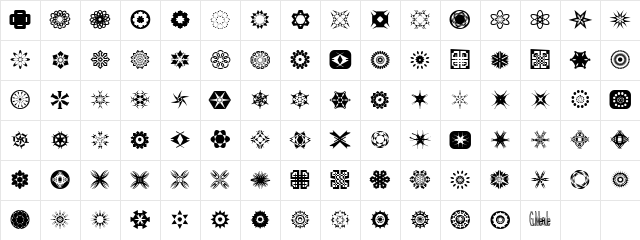
Meadings Regular
Designer: Graham Meade
Design Context for Meadings
Meadings is a composed and adaptable typeface that performs quietly and consistently across a wide range of design contexts.